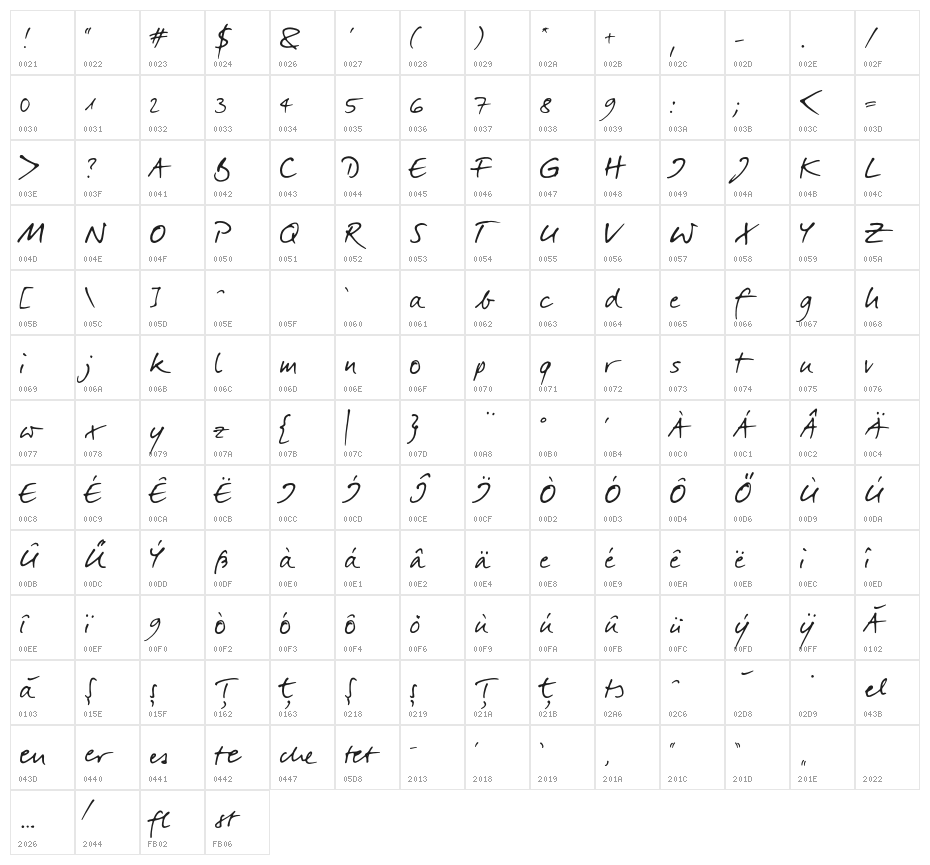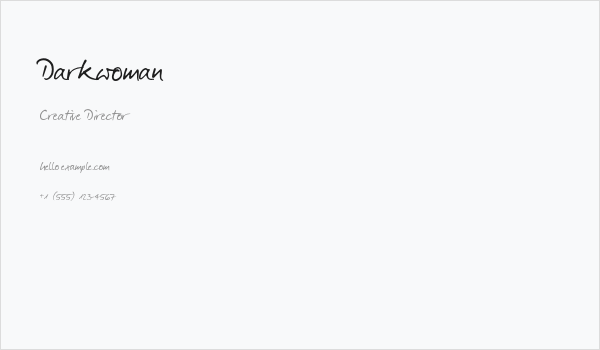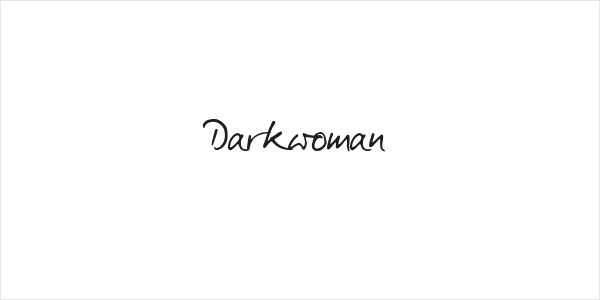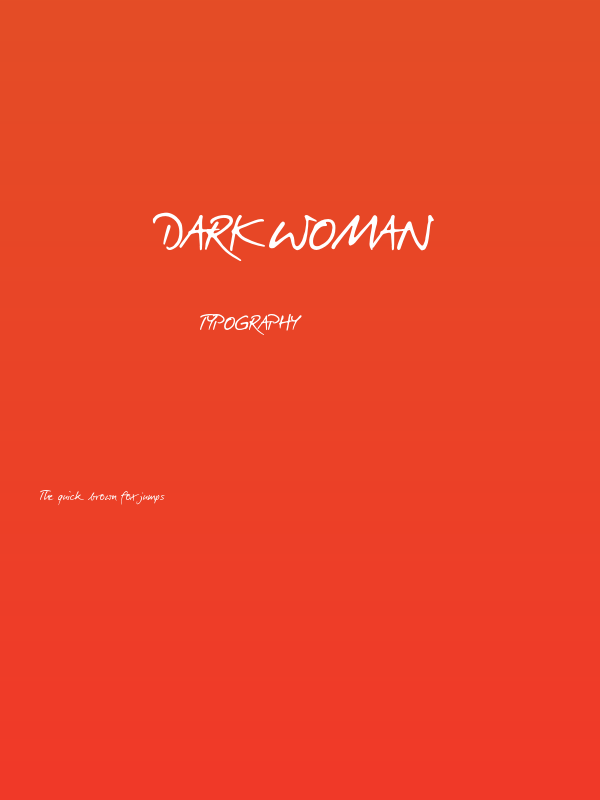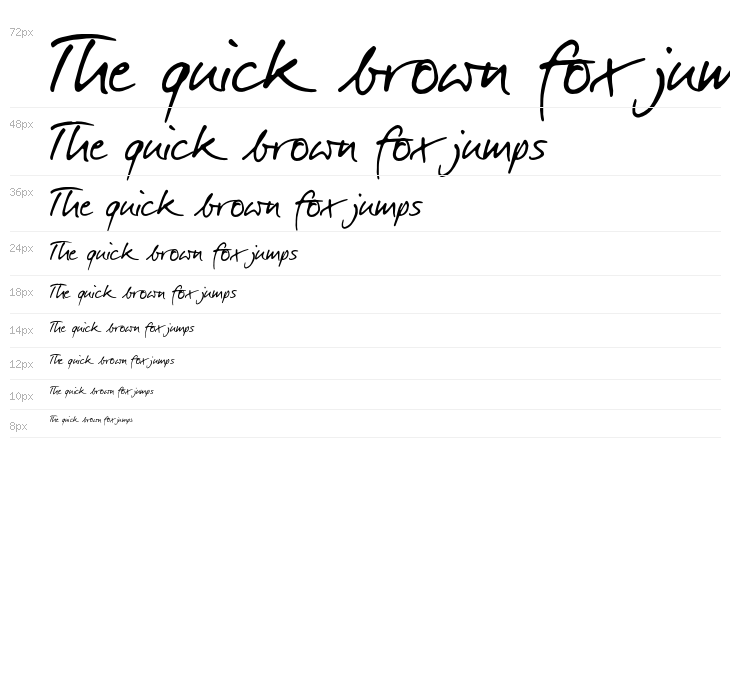
Darkwoman Font
Darkwoman Description
This font features a dynamic and expressive handwritten style, characterized by fluid strokes and a natural, flowing appearance. The uppercase and lowercase letters maintain a consistent slant, giving the text a sense of movement and energy. The characters are slightly irregular, adding to the authentic handwritten feel. The numbers and special characters are crafted with the same attention to detail, ensuring a cohesive look across all elements. This font is ideal for projects that require a personal touch or a creative flair, such as invitations, greeting cards, or artistic branding.
| Proposed Projects | Ideal for invitations, greeting cards, artistic branding, and personal projects. |